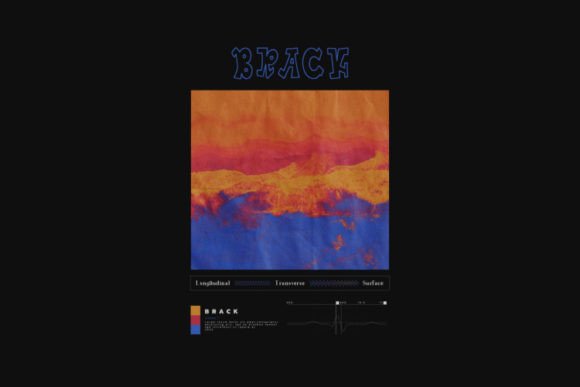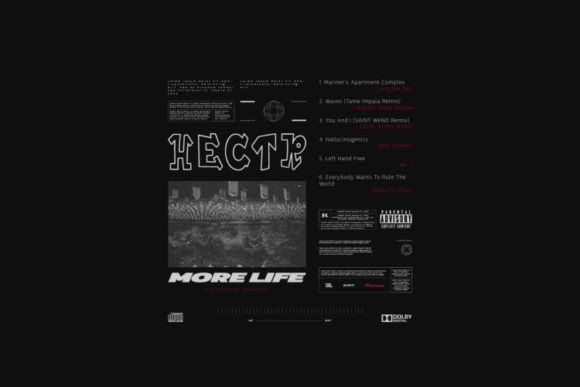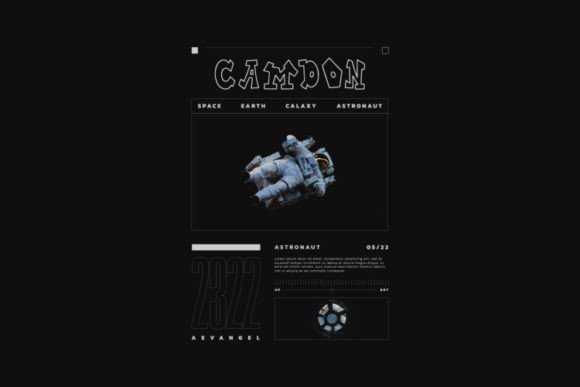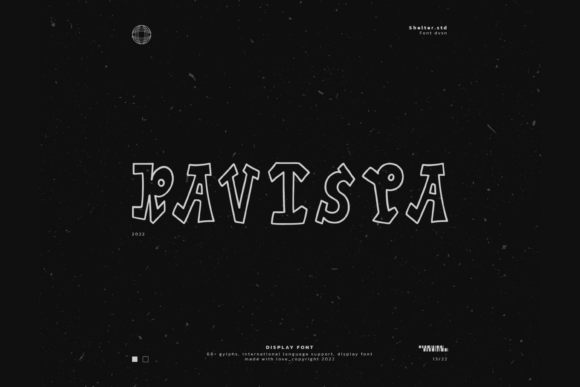
Introduction to Ravispa Font
Ravispa is a fun and playful display font.
Whimsical and a bit quirky, this font will brighten up each of your designs Add it confidently to your projects, and you will love the results.
Ravispa Font offers exceptional quality and versatility, making it a valuable addition to your design toolkit. Whether you’re creating for personal projects or commercial use, Ravispa Font delivers professional results.